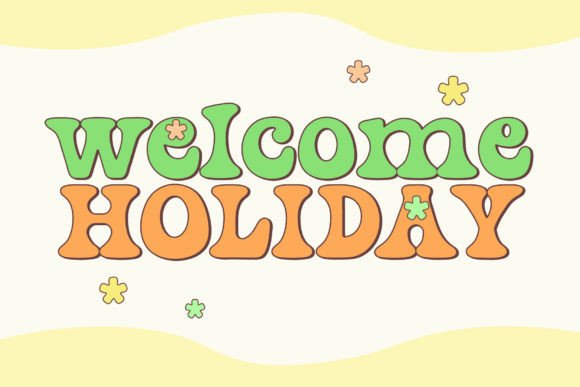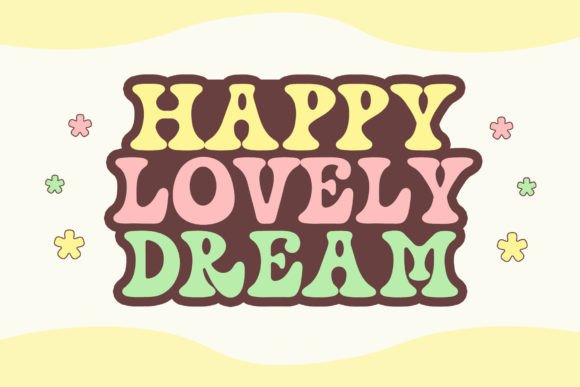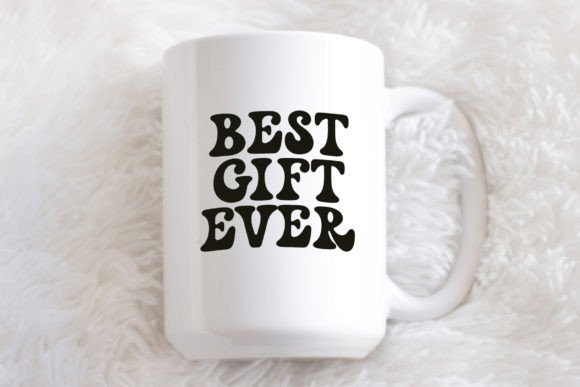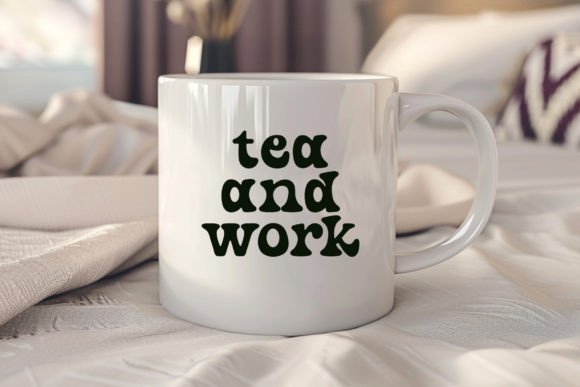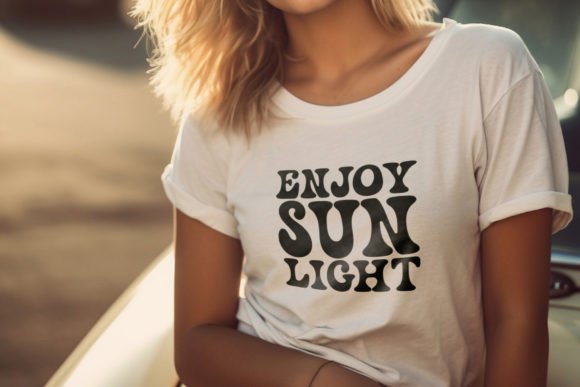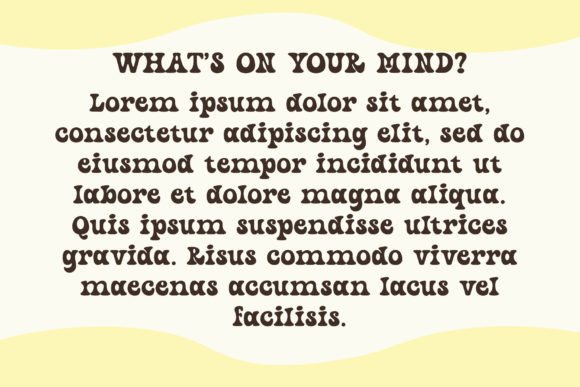
Introducing Beach Summer Font: The Perfect Blend of Retro and Playfulness
Are you looking for a font that captures the essence of a fun and carefree summer? Look no further than the Beach Summer Font! This adorable retro serif font is designed to bring a touch of modern vintage vibes to your projects, making it perfect for a wide range of applications.
What Makes Beach Summer Font So Special?
Beach Summer Font is a bold and playful font that is sure to make your designs stand out. Its unique blend of retro and modern elements gives it a distinctive look that is both nostalgic and fresh. The font’s serif design adds a touch of sophistication, while its bold lines and playful curves make it perfect for creating eye-catching headlines and titles.
Perfect for Retro and Playful Projects
Beach Summer Font is ideal for projects that require a retro and playful style. Whether you’re designing holiday-themed materials, summer promotions, or back-to-school products, this font is sure to add a fun and carefree touch. It’s also perfect for crafting, t-shirt design, stickers, birthday invitations, and many more creative projects.
Key Features of Beach Summer Font
- Retro Serif Design: Beach Summer Font features a classic serif design with a retro twist, making it perfect for projects that require a vintage look.
- Bold and Playful: The font’s bold lines and playful curves make it perfect for creating eye-catching headlines and titles.
- Modern Vintage Vibes: Beach Summer Font combines modern and vintage elements to create a unique and distinctive look.
- Highly Versatile: This font is perfect for a wide range of projects, from holiday-themed materials to crafting and t-shirt design.
Use Beach Summer Font for Your Next Project
If you’re looking for a font that will add a touch of fun and playfulness to your designs, look no further than Beach Summer Font. With its unique blend of retro and modern elements, this font is sure to make your projects stand out. Here are some ideas for using Beach Summer Font:
- Holiday-themed materials: Use Beach Summer Font to create eye-catching holiday-themed materials, such as Christmas cards, Easter eggs, or Halloween decorations.
- Summer promotions: Perfect for summer promotions, Beach Summer Font can add a fun and carefree touch to your advertising materials.
- Back-to-school products: Use Beach Summer Font to create fun and playful back-to-school products, such as stickers, pencils, or notebooks.
- T-shirt design: Beach Summer Font is perfect for t-shirt design, adding a bold and playful touch to your designs.
- Crafting: Use Beach Summer Font to add a personal touch to your crafting projects, such as scrapbooking, card making, or DIY decorations.
Beach Summer Font is a unique and versatile font that is perfect for designers and crafters looking to add a touch of fun and playfulness to their projects. With its retro serif design, bold and playful lines, and modern vintage vibes, this font is sure to make your designs stand out. Whether you’re working on holiday-themed materials, summer promotions, or back-to-school products, Beach Summer Font is the perfect choice.